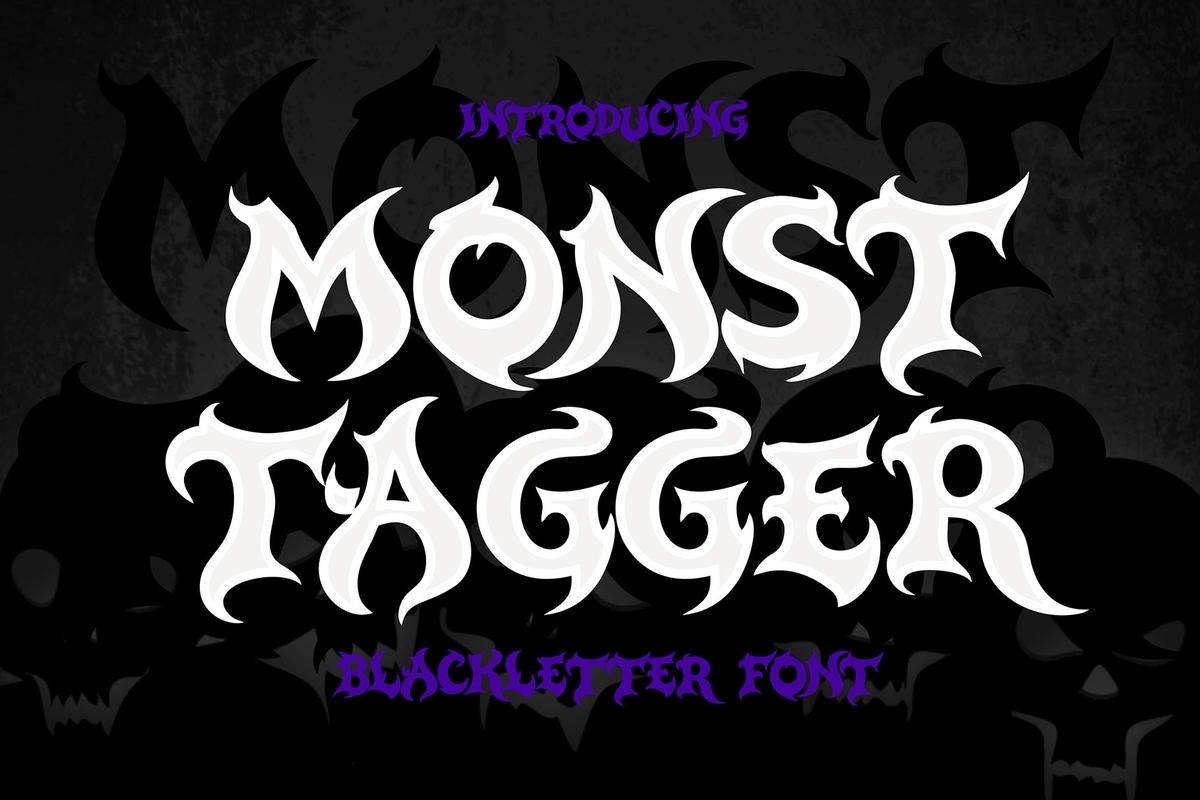
Monst Tagger
Monsttager is a bold blackletter display font that combines classic gothic typography with a modern and aggressive visual style. Inspired by traditional medieval lettering and contemporary urban aesthetics, this typeface delivers a strong, dramatic presence that instantly commands attention. Its sharp angles, heavy strokes, and intricate details make it perfect for designs that require intensity and character. The font features uppercase characters designed with bold proportions and structured